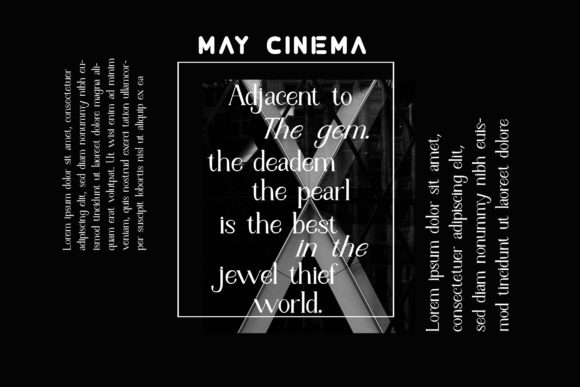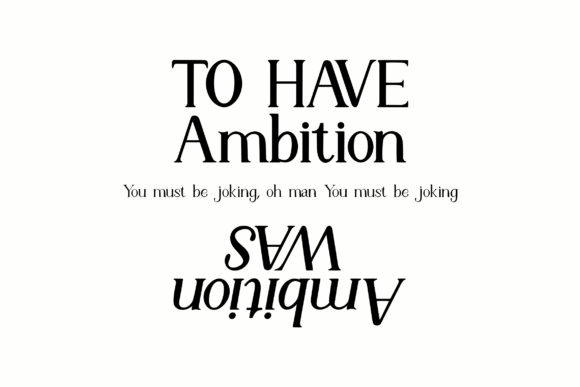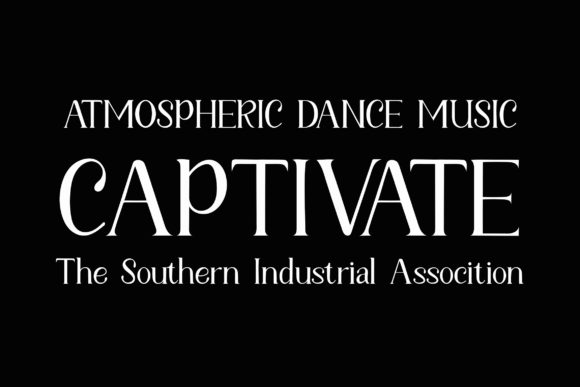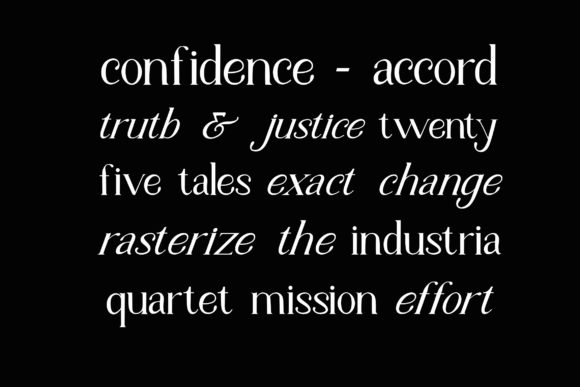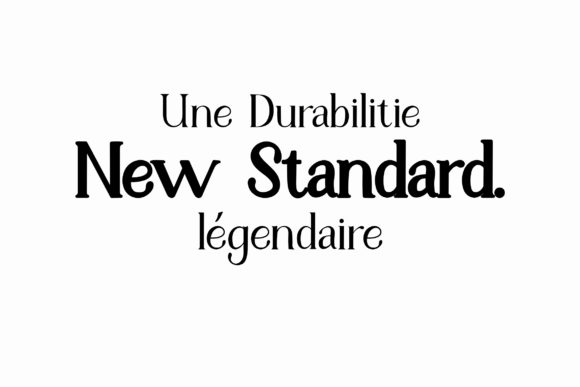
Introduction to Fetance Font Font
Fonts play a crucial role in design, and the Fetance Font font is a typeface that brings both character and versatility to any project. Whether you’re working on a branding project, a website, or a print design, the Fetance Font font offers a unique style that can elevate your work.
The Fetance is a great font for creating beautiful and elegant headlines and logo designs.
It works well with large sizes and also works very well with large distances .
Key Features of Fetance Font Font
Why Choose Fetance Font Font?
The Fetance Font font is more than just a typeface – it’s a design tool that helps you communicate your message with style and clarity. Its unique character set and versatile design make it suitable for a wide range of applications, from elegant invitations to bold headlines.
With its carefully crafted letterforms and balanced proportions, the Fetance Font font ensures readability and visual appeal across all mediums.
What makes Fetance Font font special?
The Fetance Font font stands out with its unique design, exceptional readability, and versatility across various design applications.